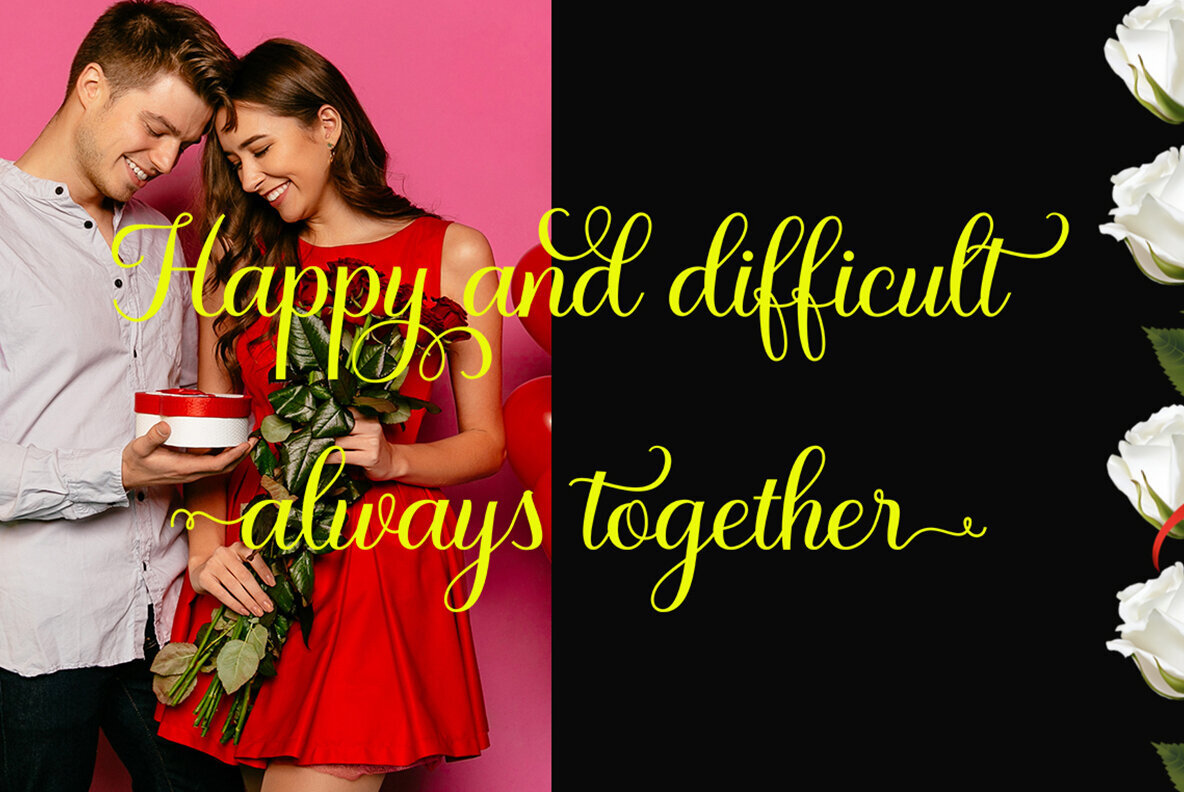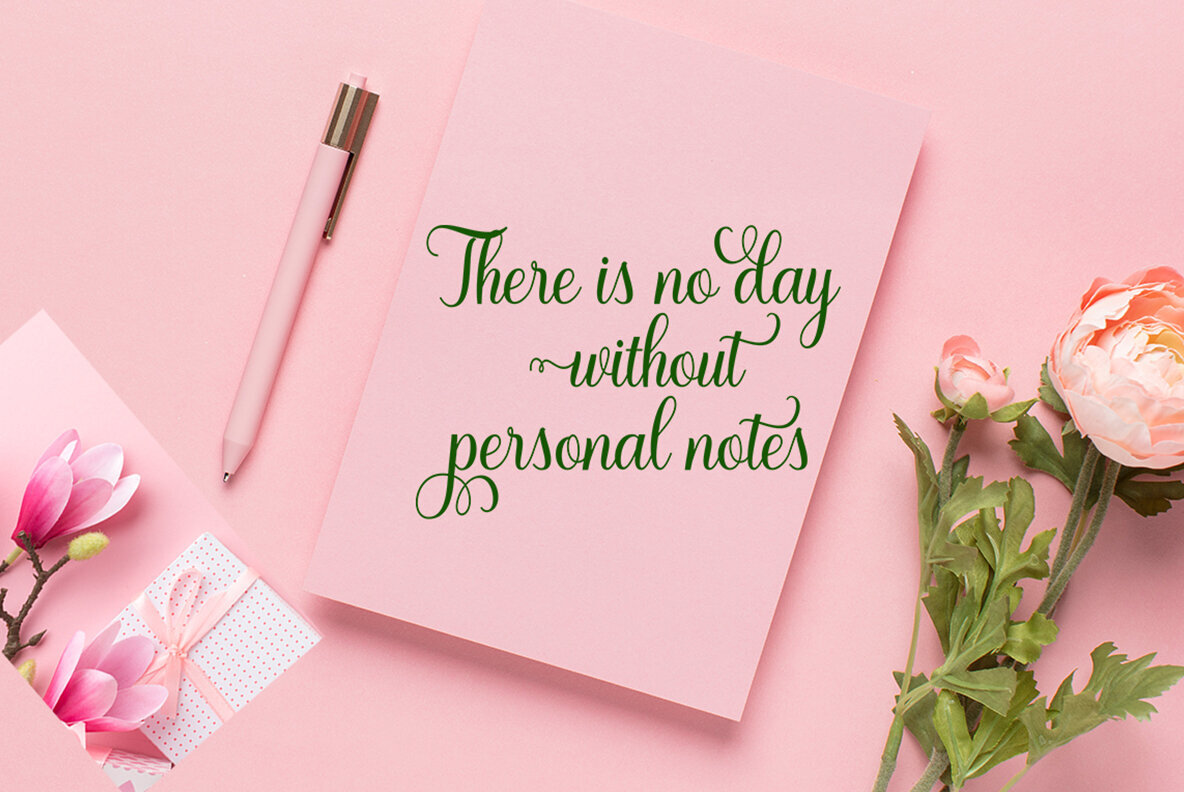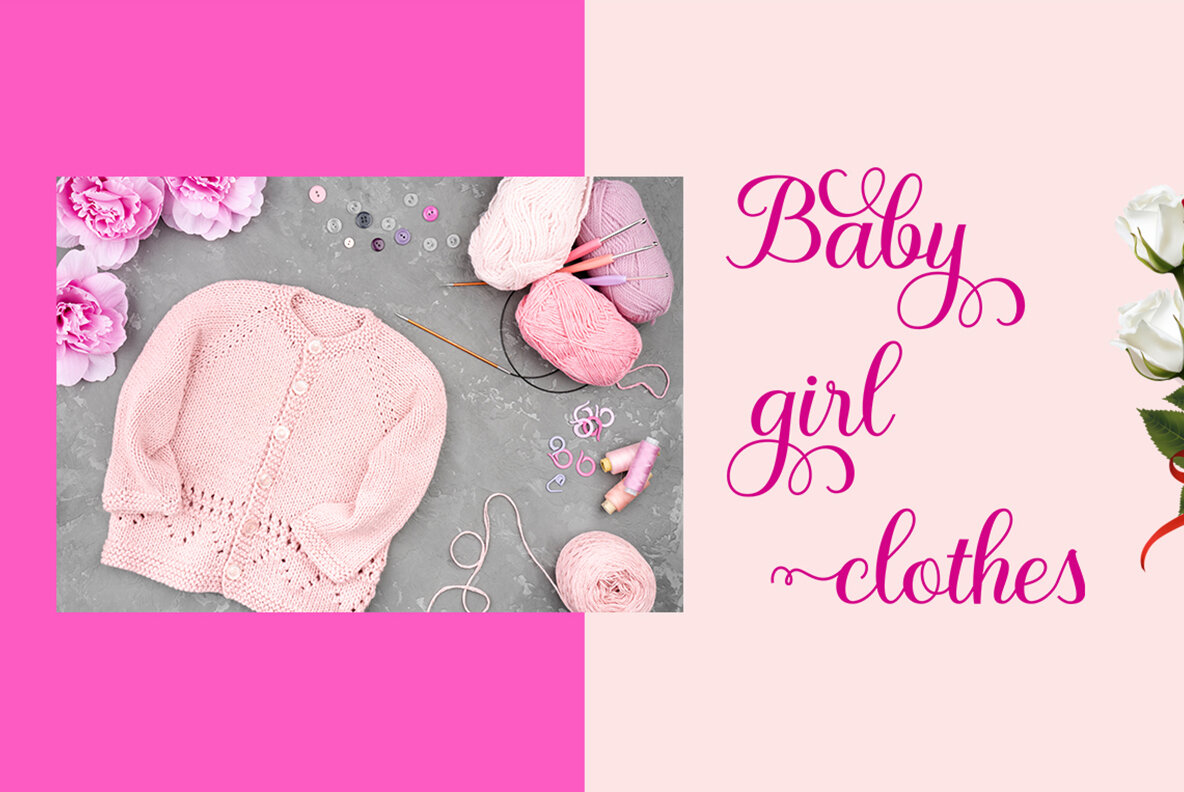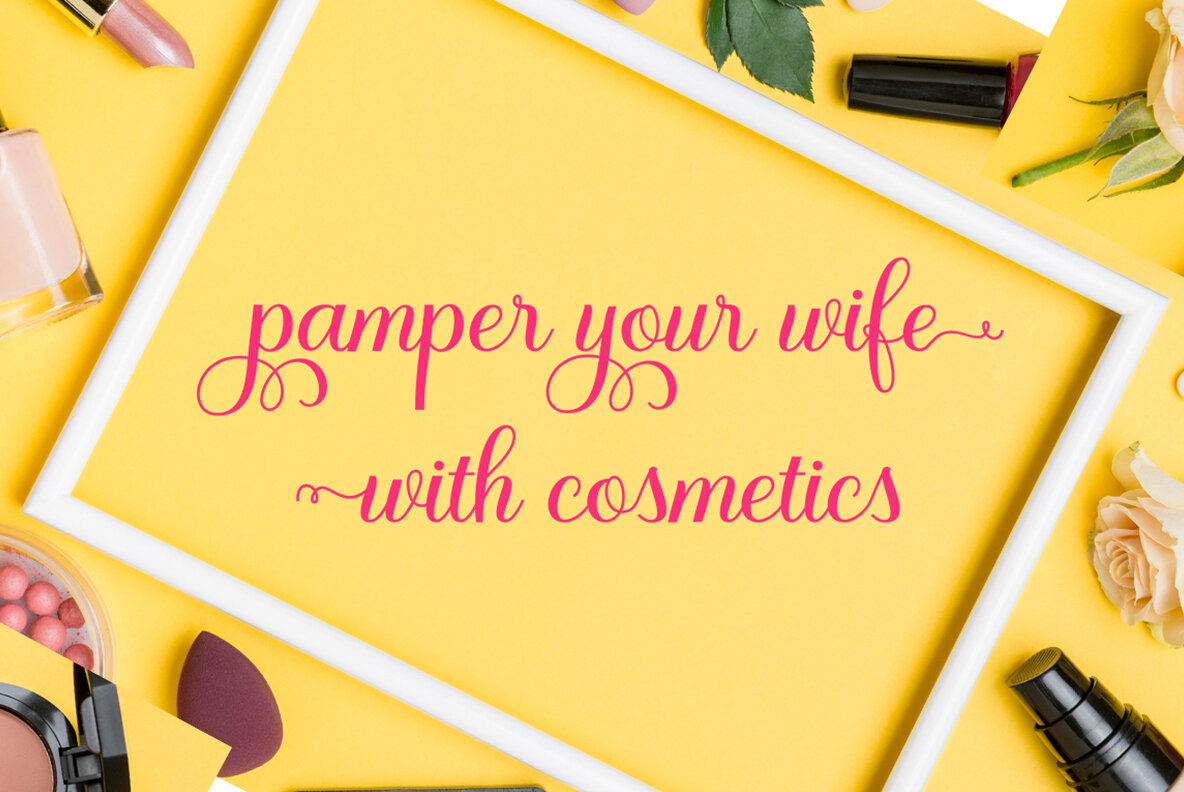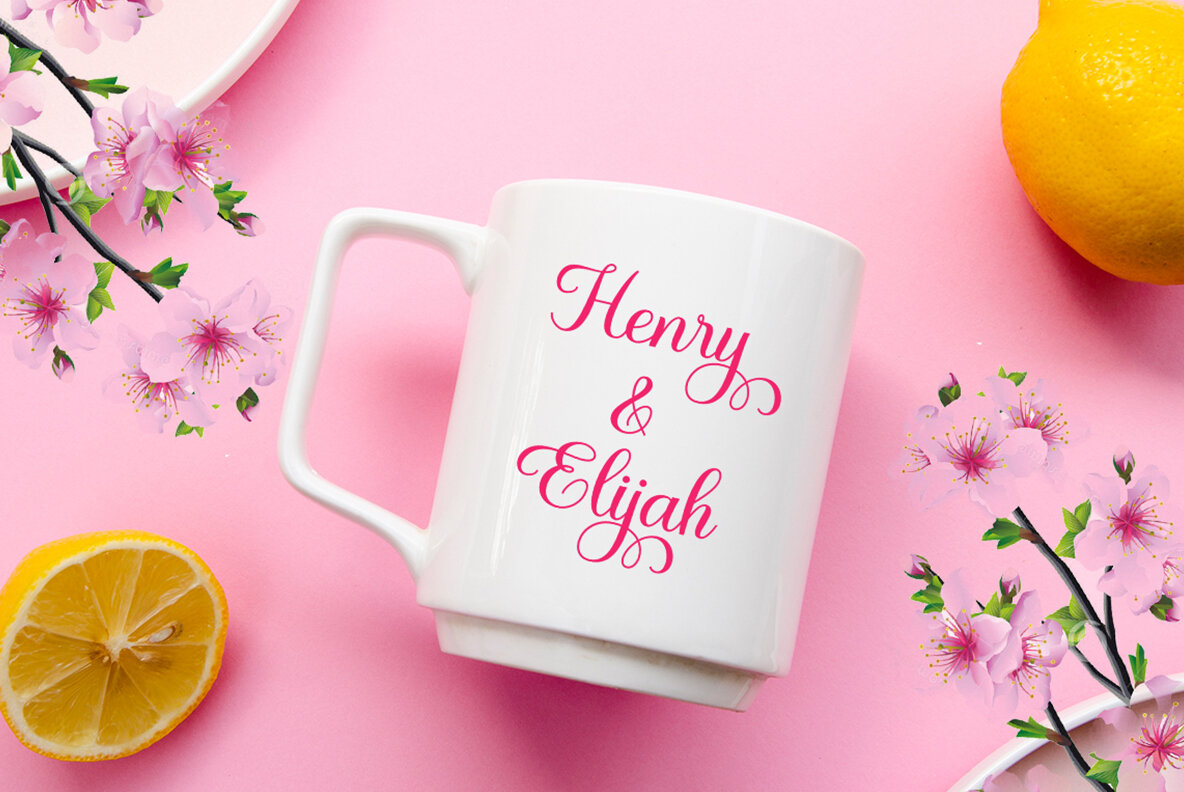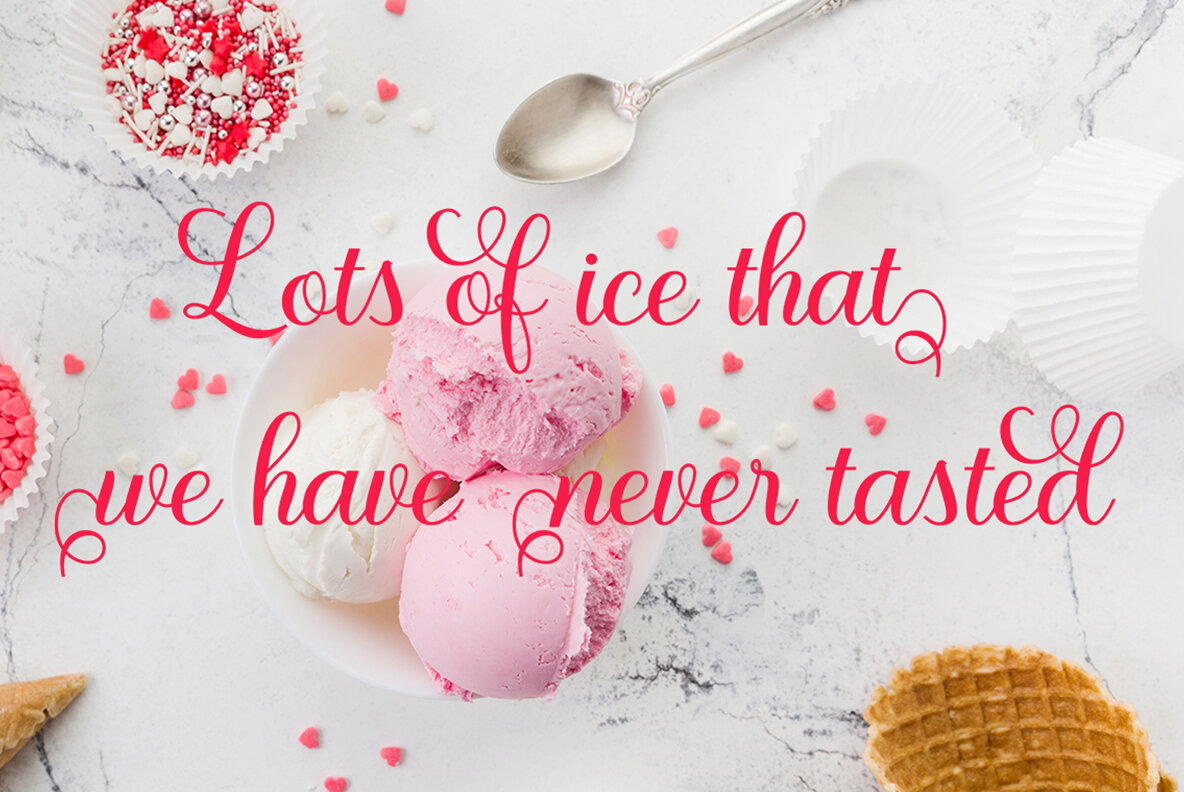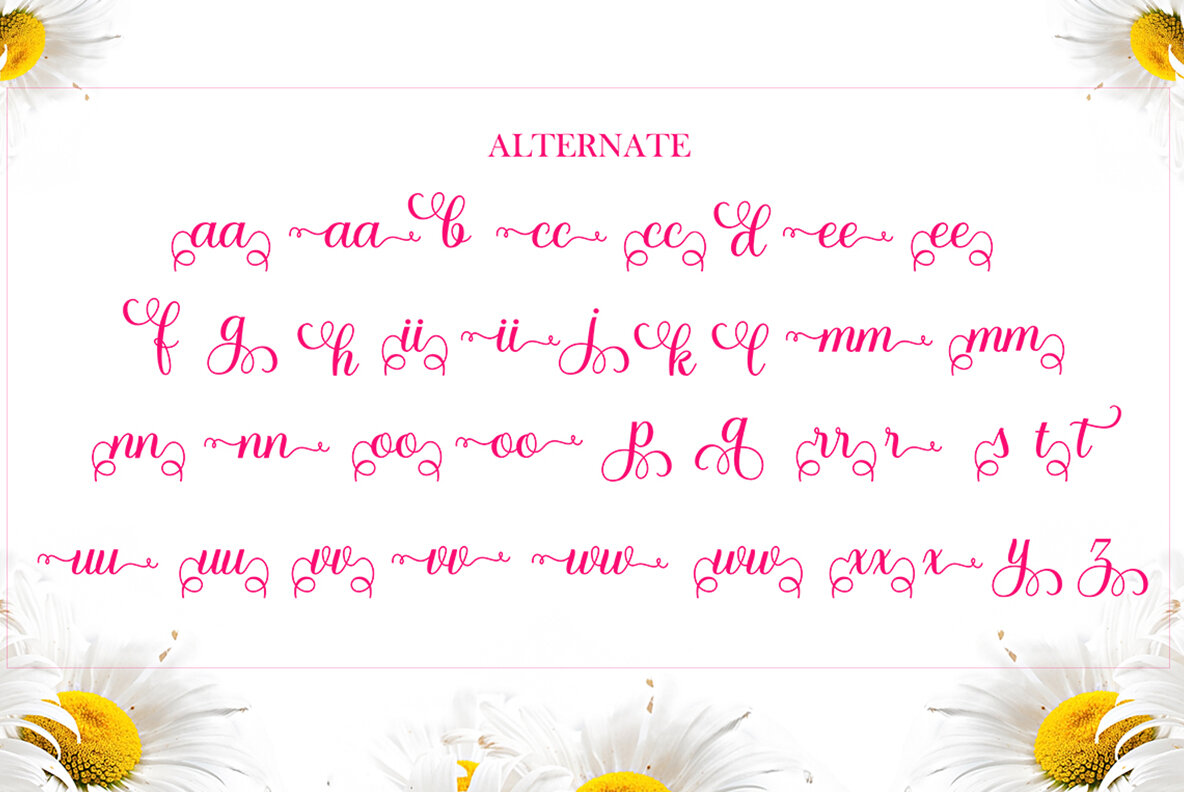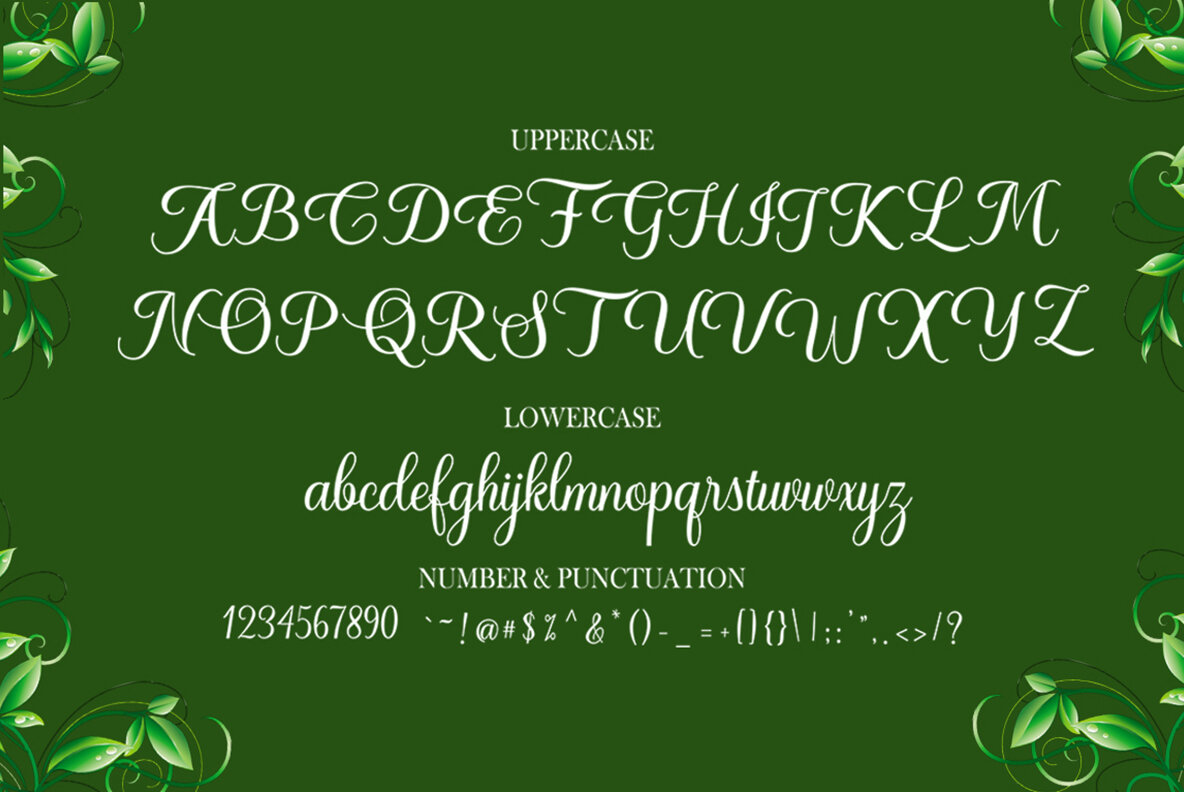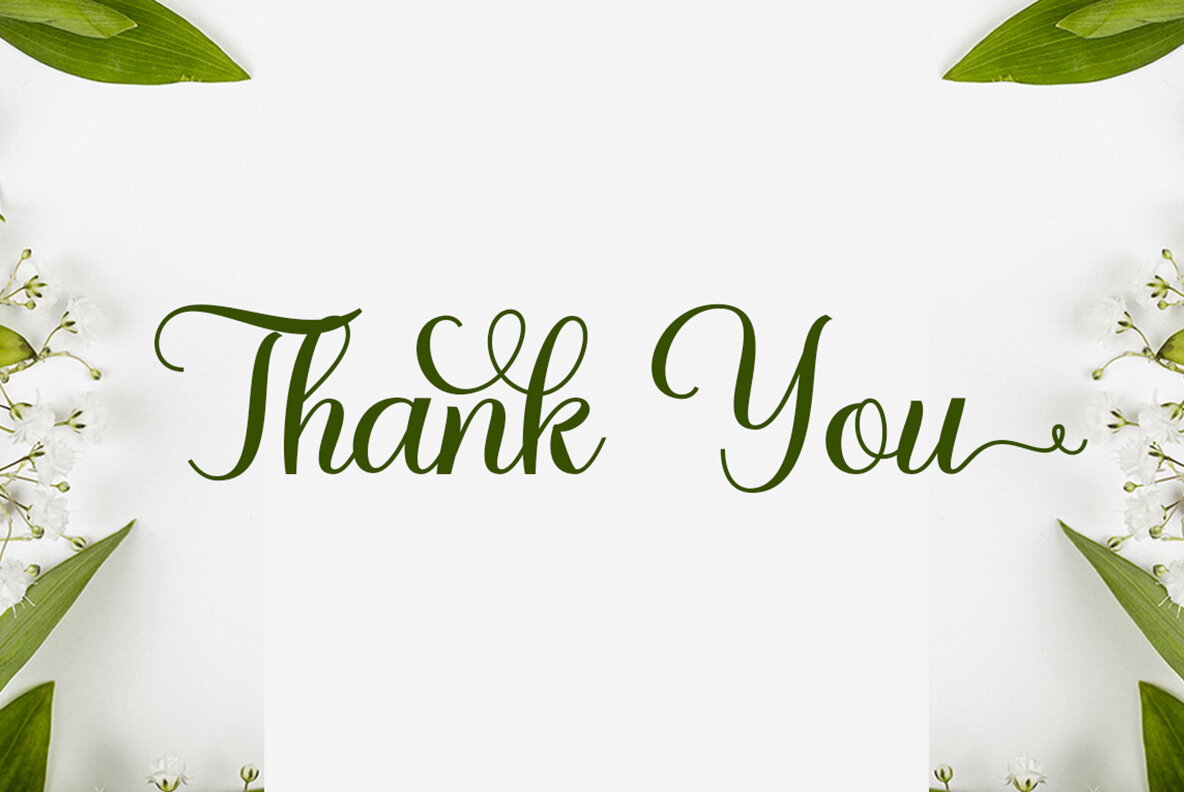
Whitney Font
Whitney Regular
Whitney is a modern script font that blends handwriting with decorative characters, designed to offer a perfect balance of informal, sassy, romantic, and sweet scripts. Its hand-drawn design elements allow you to create stunning typographic designs effortlessly, suitable for branding, logos, web design, editorial work, prints, invitations, crafts, quotes, and more. To leverage the full potential of Whitney's OpenType features, you need a program that supports OpenType functionalities like Adobe Illustrator CS, Adobe InDesign, CorelDraw X6-X7, or Microsoft Word 2010 and later versions.Whitney: A Modern Script Font With Hand-Drawn Charm
Features of Whitney